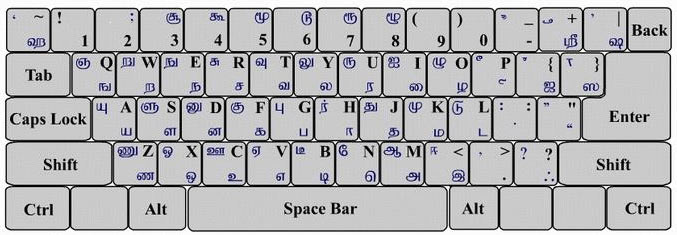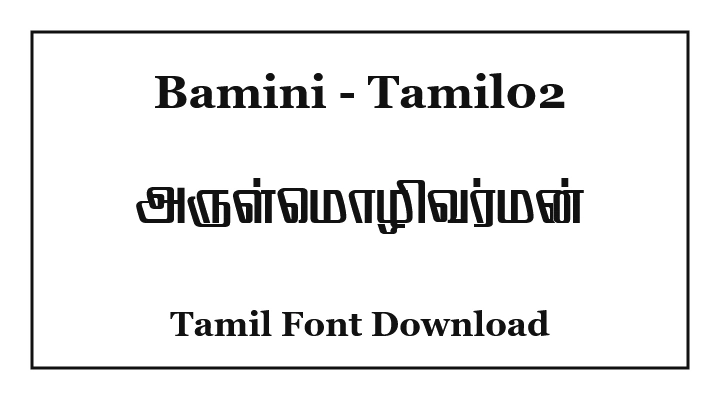
Bamini Tamil02 Tamil Font Free Download. BAMINI Tamil02 is one of the Tamil Stylish Font. Specially used in publications. Here you can download Font and Keyboard Layout for Free. This font is widely used by Tamil Nadu and Sri Lankan Tamil Peoples. The following font was design and generated by Fontographer 3.5.
Bamini Tamil02 Tamil Font Preview